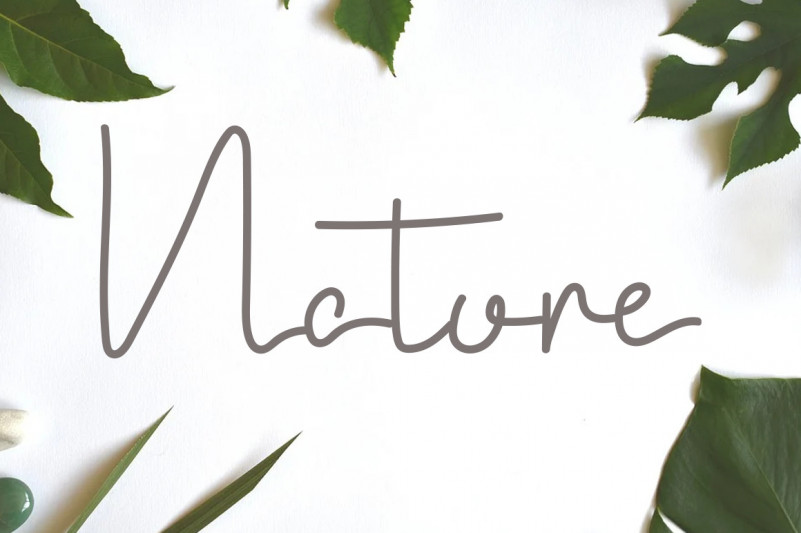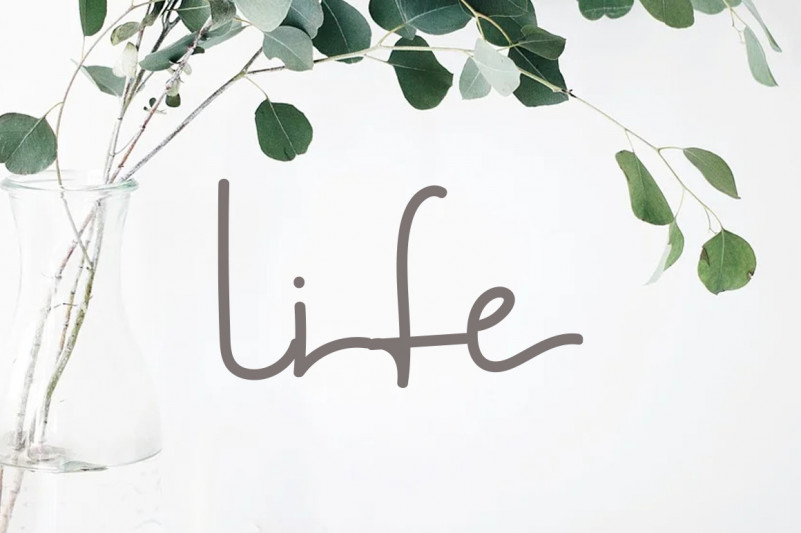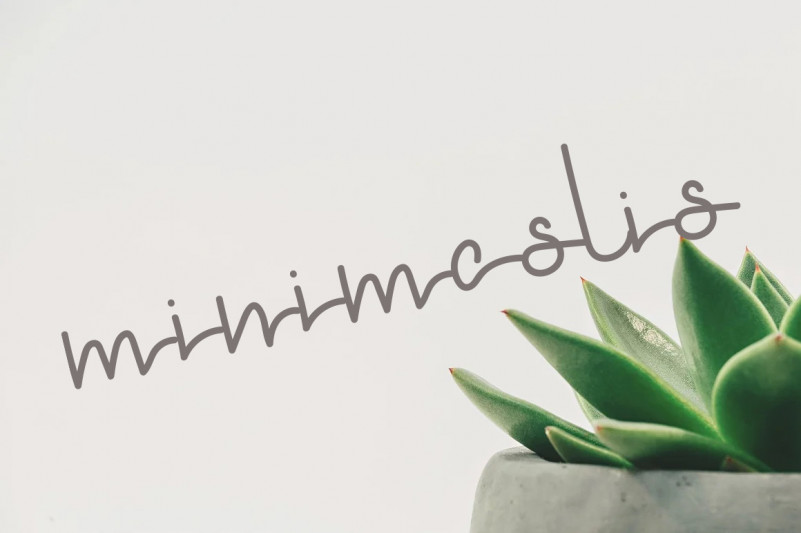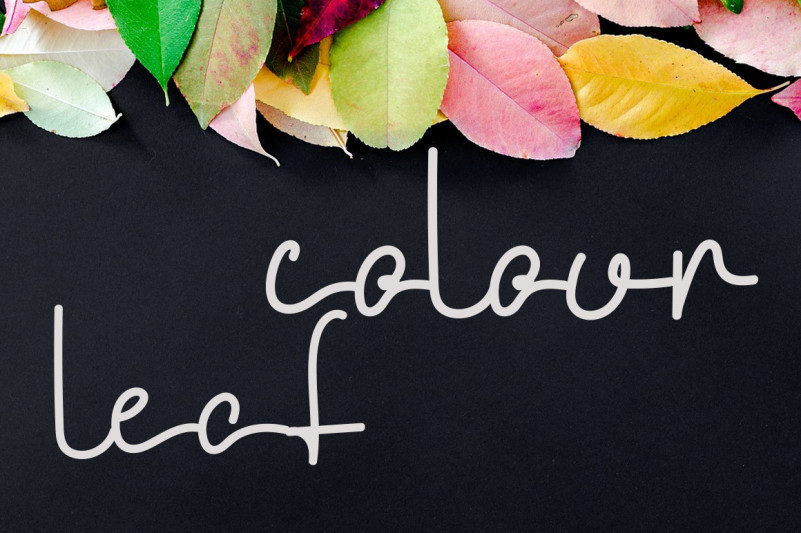
White House Handwritten Font
This is a dainty, thin and cursive handwritten font. This gentle font will look gorgeous on a variety of design ideas. It will add a joyful and romantic touch to each of your projects!